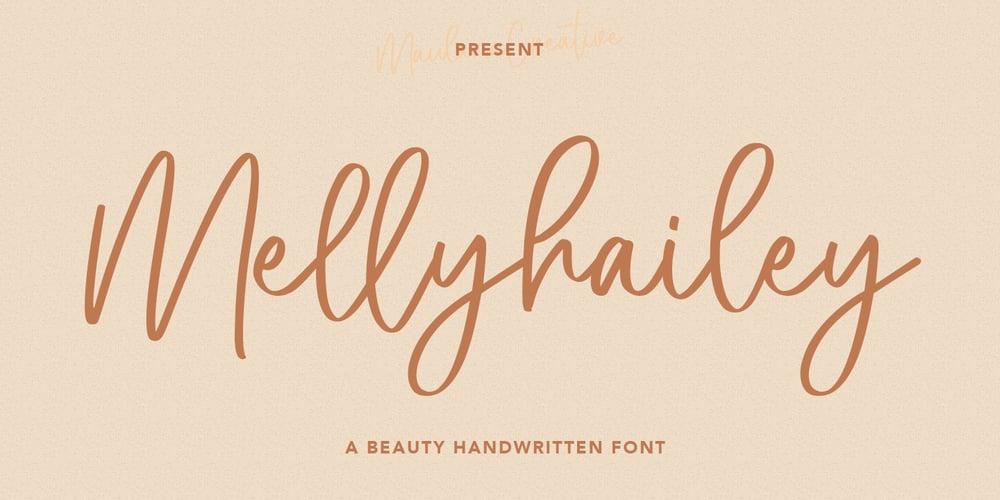
Melly Hailey
Melly Hailey font
Melly Hailey Font Family was designed by Gilang Maulana and published by Maulana Creative. Melly Hailey contains 1 styles and family package options. Melly Hailey Handwritten Font, With a high contrast quirk stroke clean and fancy characters. It has Opentype features of ligatures, makes it a perfect choice for branding and digital designs. Use this font for logos, social media, websites, blogs, instagram, social media, business cards, branding, and more! Melly Hailey font support multilingual more than 100+ language. and good pair for your secondary text font with sans or serif. Make a stunning work with Melly Hailey signature script font.